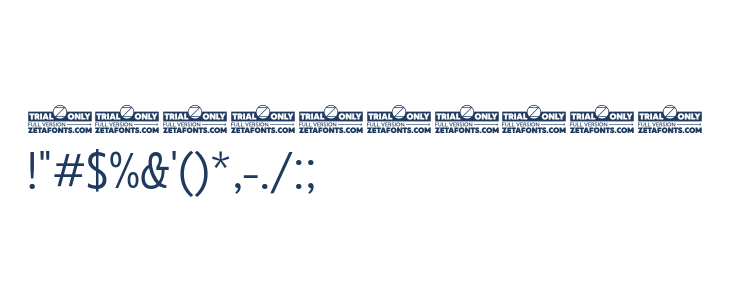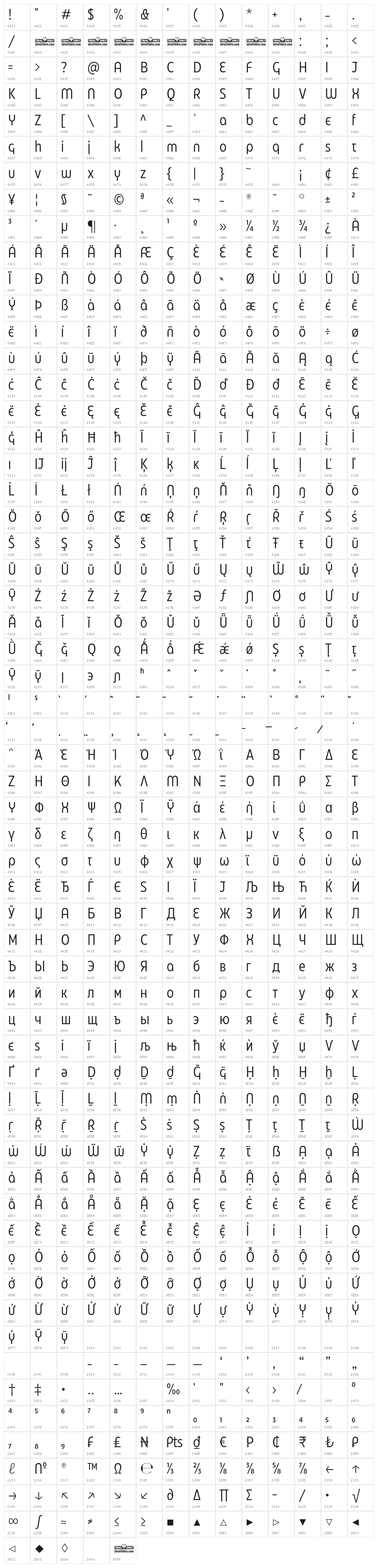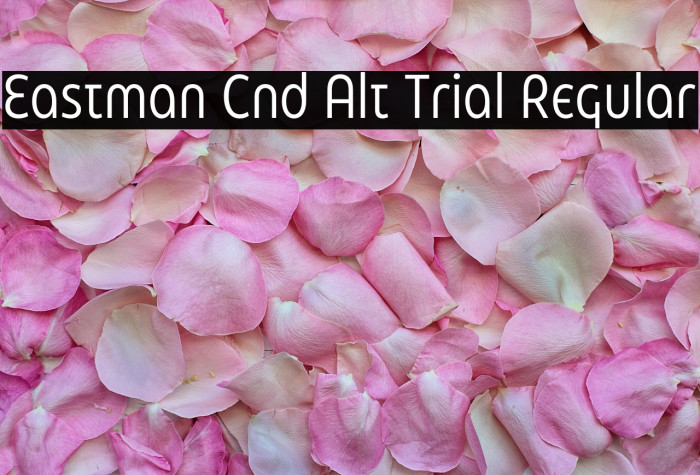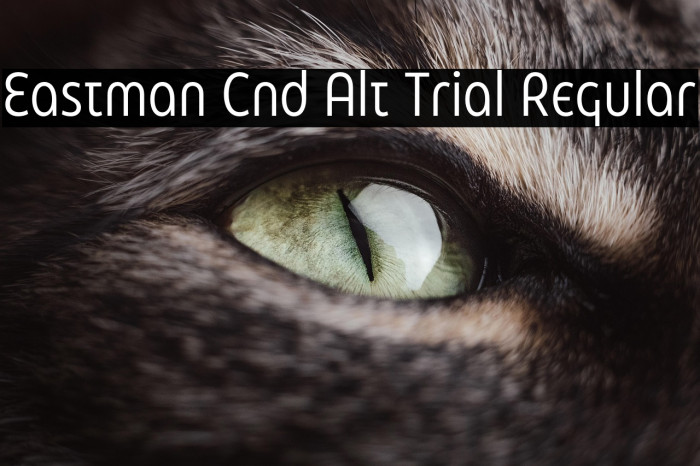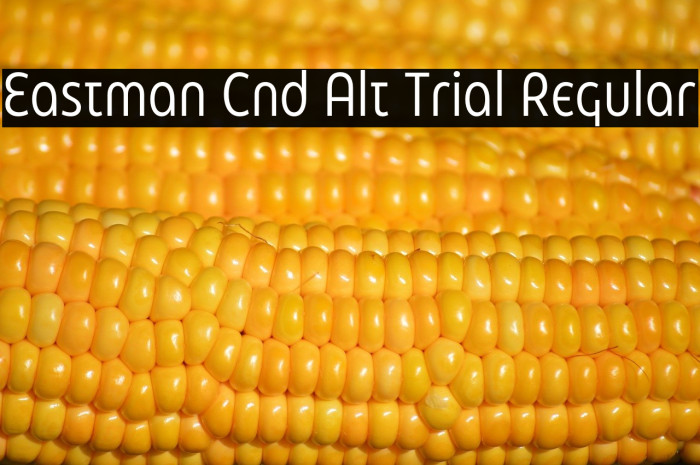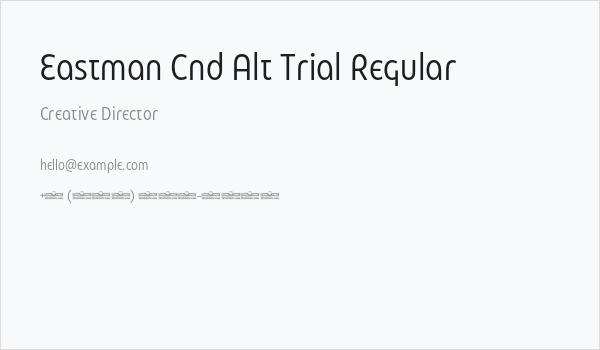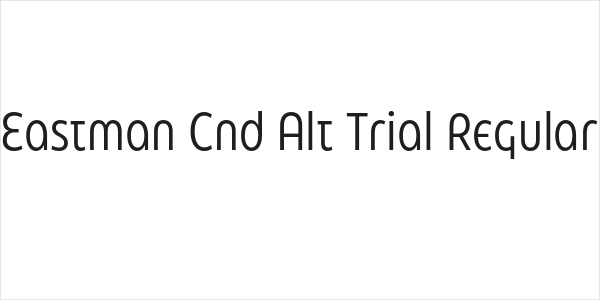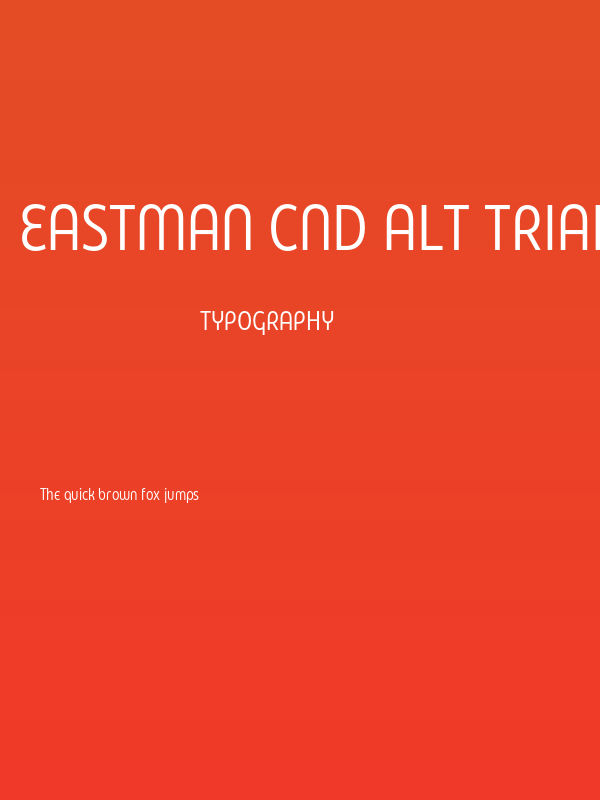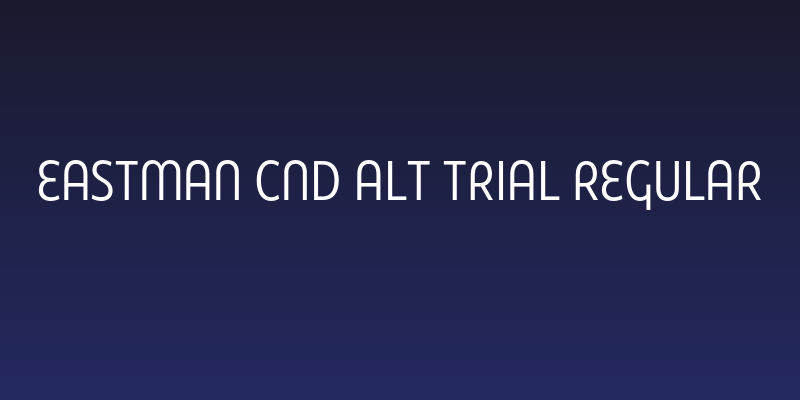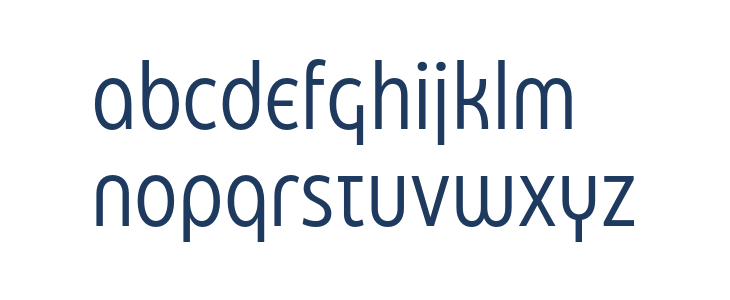
Eastman Cnd Alt Trial Regular Font
Eastman Cnd Alt Trial Regular Description
This font features a clean and modern design with a geometric sans-serif style. The characters are uniformly structured, offering a sleek and contemporary appearance. The uppercase and lowercase letters maintain a consistent height and width, contributing to a balanced and harmonious look. The numerals and special characters are designed to match the overall aesthetic, ensuring a cohesive visual experience. The font's simplicity and clarity make it highly legible, suitable for various applications where readability is essential.
| Proposed Projects | Ideal for branding, web design, advertising, and editorial projects where a modern and clean look is desired. |